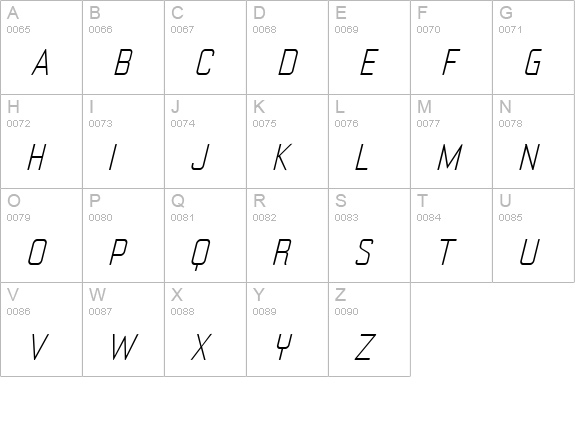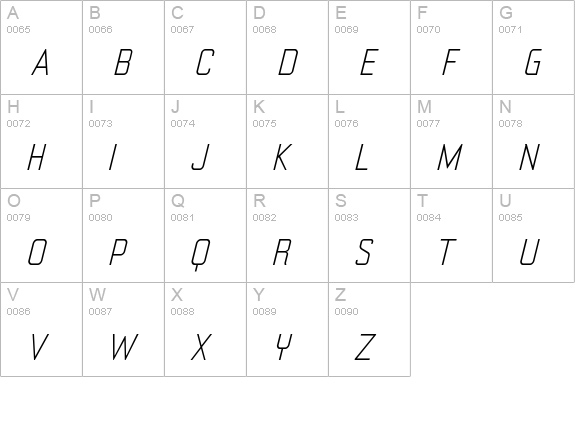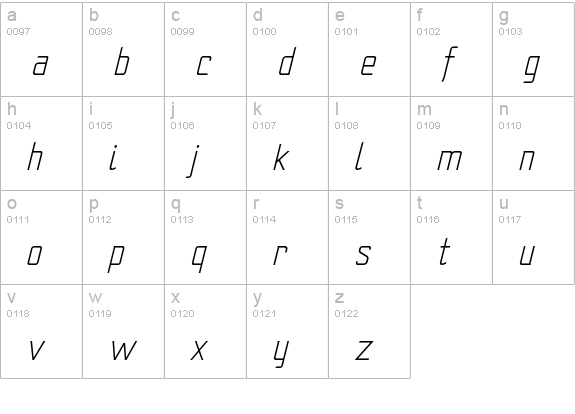
YearlingLiteOblique Font Details
YearlingLiteOblique font is a modern and elegant typeface that exudes sophistication and style. Its slender and slanted design gives it a unique touch, making it perfect for a variety of design projects. Whether you are working on branding, advertising, or editorial design, YearlingLiteOblique font will surely make your text stand out. What's even better is that YearlingLiteOblique font is available for free download at FontsMarket.com. This means you can easily access this high-quality font without any cost, making it a great choice for designers on a budget. Don't miss out on this opportunity to enhance your designs with the beauty and versatility of YearlingLiteOblique font. Download it now and elevate your projects to the next level!